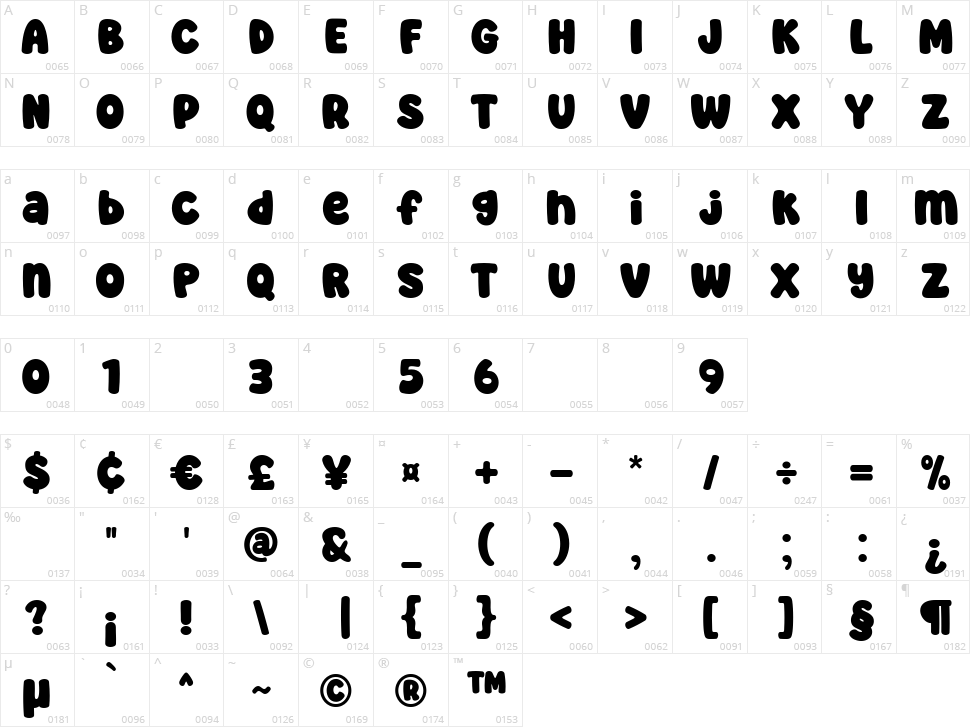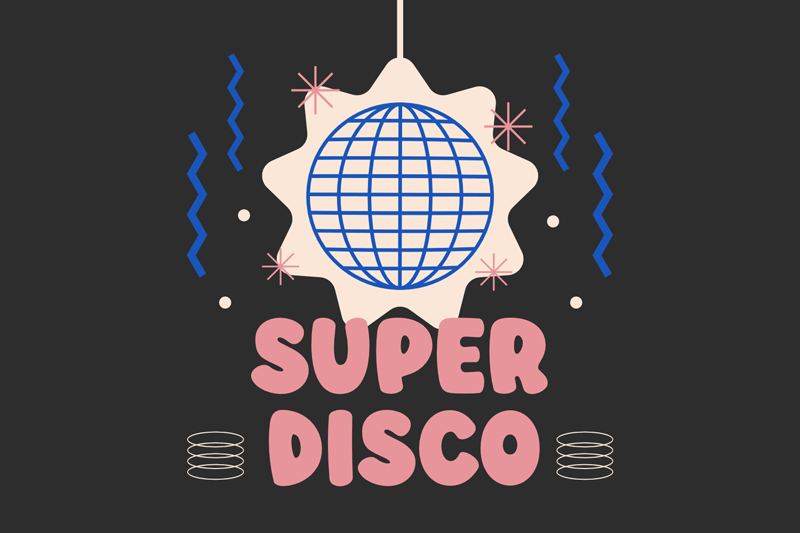
Super Disco
Super Disco: This font isn't just catchy, it's a full-blown invitation to the dance floor! Imagine roller skates gliding across a glitter-strewn rink, spotlights flashing on sequined jumpsuits, and a soundtrack straight out of a Saturday morning cartoon. Super Disco captures that vibrant energy and throws it onto the page in a font that's both fancy and fuss-free.